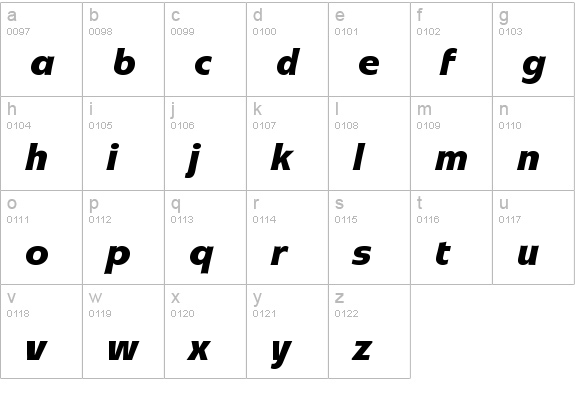
MixageEF-BlackItalic is a sleek and modern font that exudes sophistication and elegance. Its bold and italic design creates a striking visual impact, making it perfect for headers, titles, and other design elements that require a touch of drama. The fluid curves and sharp angles of MixageEF-BlackItalic combine to form a harmonious balance that catches the eye and commands attention. The best part? MixageEF-BlackItalic is available for free download at FontsMarket.com. That's right, you can enjoy the beauty and versatility of this stunning font without having to spend a dime. Whether you're working on a professional project or just looking to add a touch of style to your personal designs, MixageEF-BlackItalic is the perfect choice. Download it now and elevate your designs to the next level.